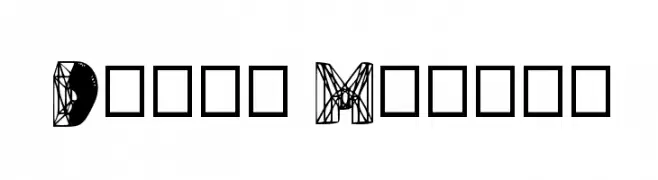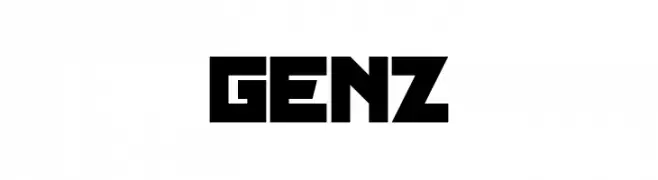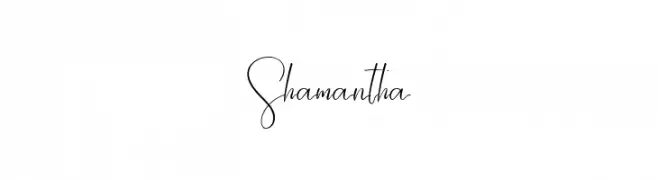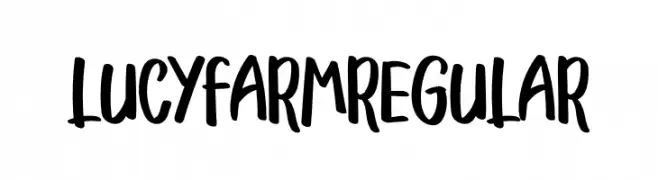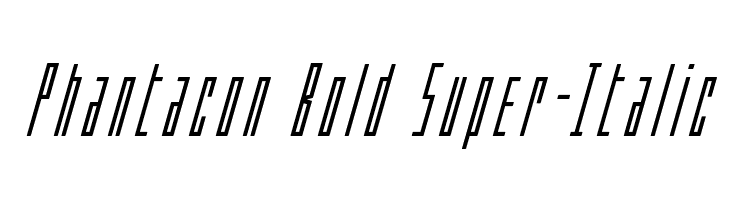
A geometric, mesh-like decorative font with a modern and artistic style.
A bold, italicized font with a futuristic and dynamic style.
A bold, geometric font with a futuristic and digital aesthetic.
Bold, playful sans-serif with quirky, irregular shapes.
A religious-themed dingbat font with Bible and Christian iconography.
A bold, gothic-inspired font with sharp, angular edges and high contrast.
An elegant, flowing script font with smooth, cursive strokes.
A bold, 3D italic font with a playful and dynamic style.
A bold, playful handwritten font with a casual and friendly style.